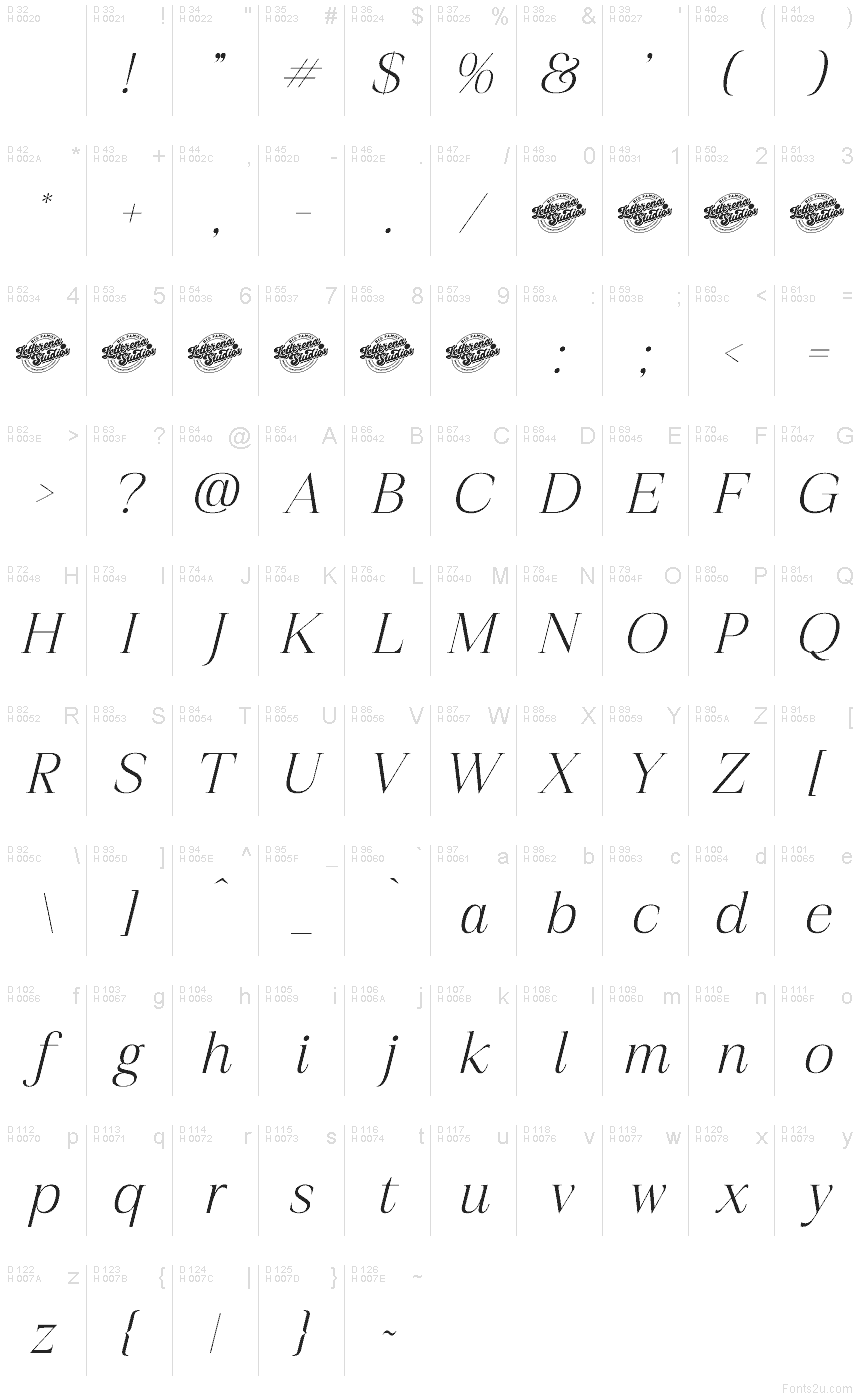
Realife Moment DEMO VERSION Italic
Realife Moment Italic font by Letterena Studios is an elegant serif typeface that brings a classic and sophisticated touch to its typography. With serifs on all edges of its letters, the font captures a timeless appeal with visible symmetry and balance. It’s also characterized as italic which is made obvious by the right-leaning design of most letters.
Free to use, Realife Moment Italic acts as a multipurpose font for logos, book cover titles, magazine covers, greeting cards, and invitation cards. It works for other print designs like business cards and branding stationery or digital venues such as website headers or social media posts and ads.